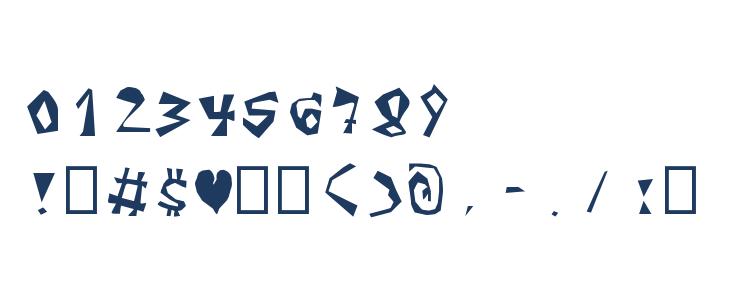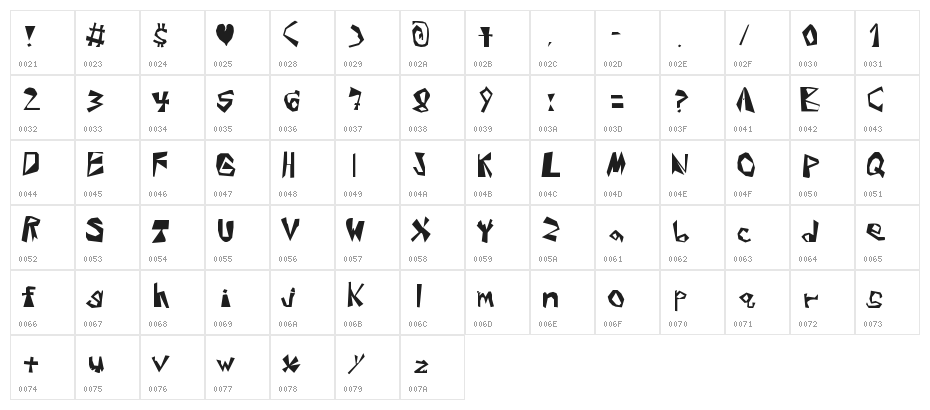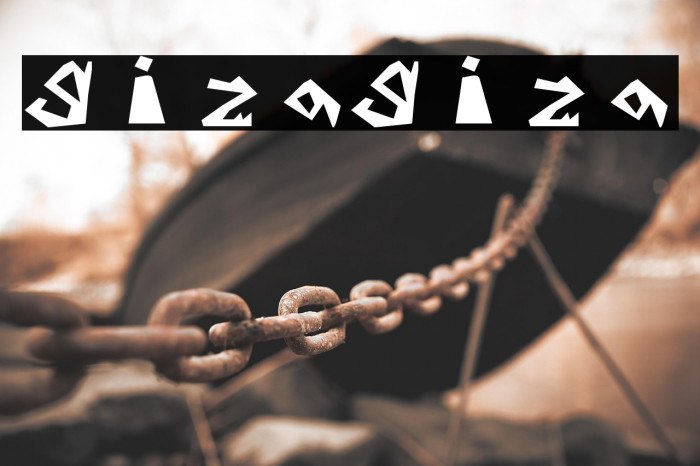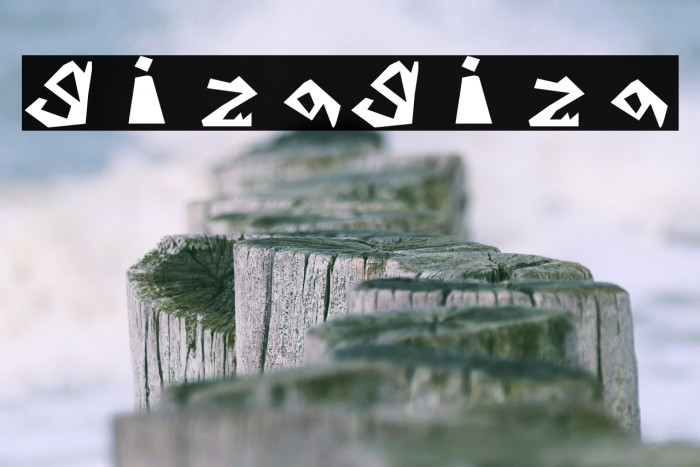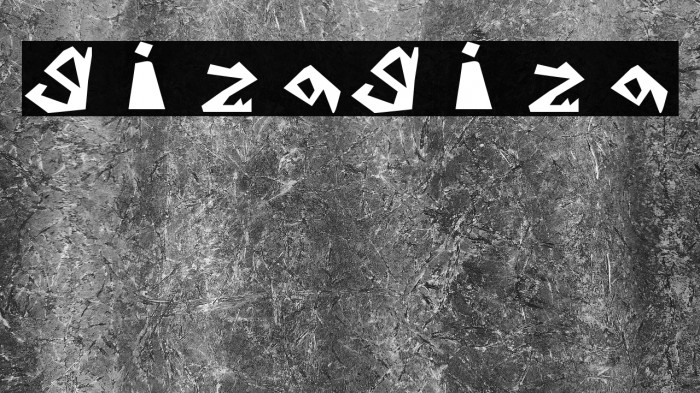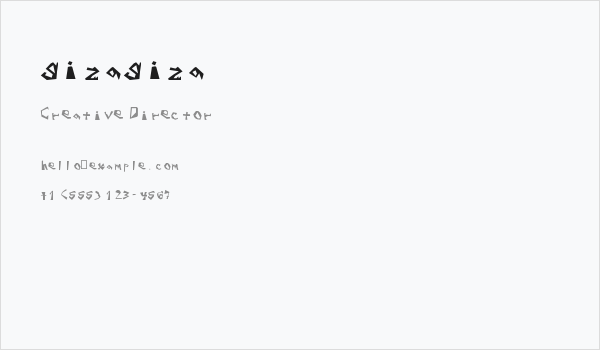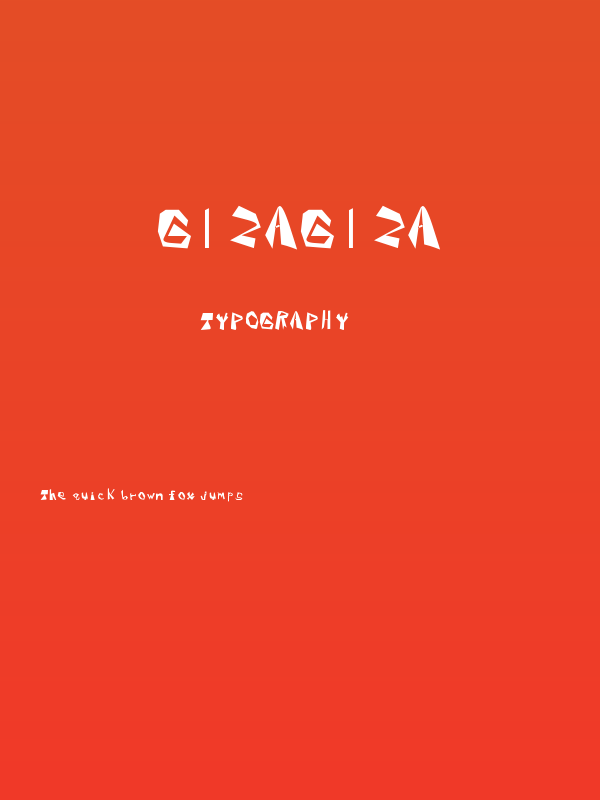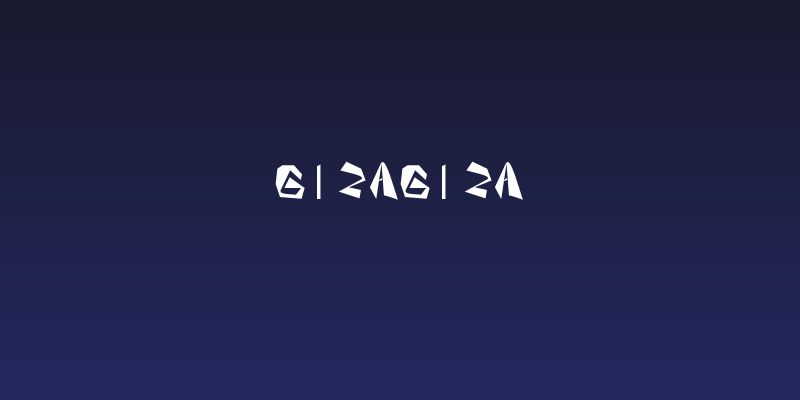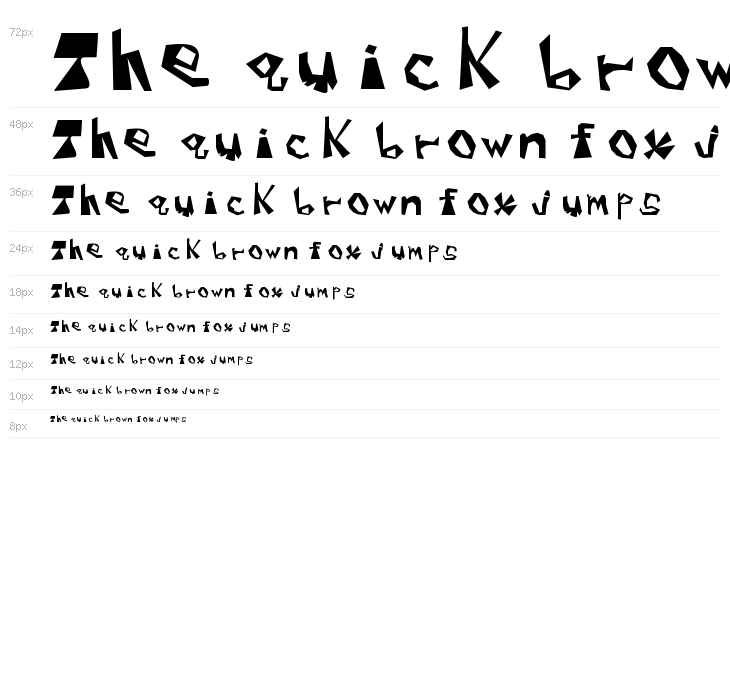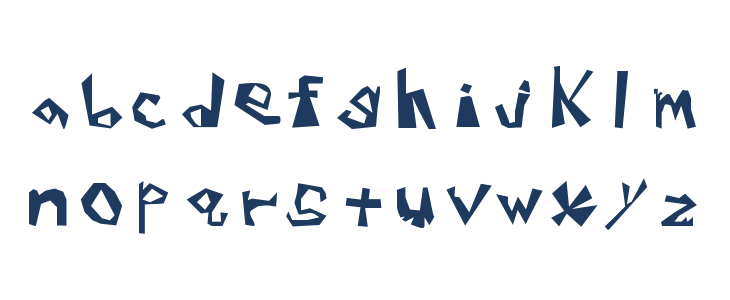
gizagiza Font
gizagiza Description
This font features a bold and dynamic design with sharp, angular edges and a geometric style. The characters are highly stylized, giving an impression of movement and energy. Each letter and number is crafted with a unique, edgy appearance, making it stand out in any design. The font's irregular shapes and bold strokes create a sense of modernity and creativity. It is perfect for projects that require a strong visual impact and a contemporary feel. The special characters maintain the same angular and bold characteristics, ensuring consistency throughout the font.
| Proposed Projects | Ideal for posters, album covers, branding, and any project needing a modern, edgy look. |